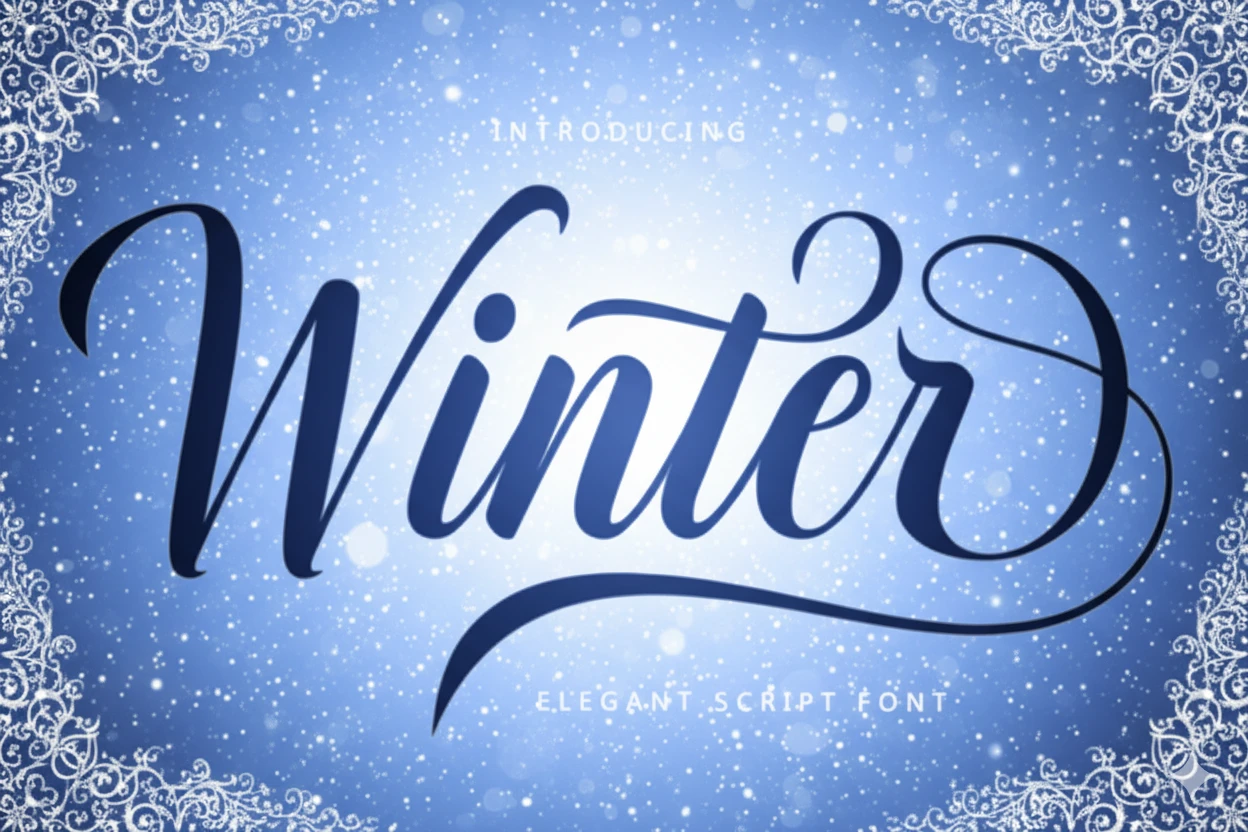
Winter Font – Elegant Script & Modern Calligraphy Typeface
Winter Font is an elegant script and modern calligraphy typeface — ideal for Christmas cards, branding, and luxury holiday design projects.
Celebrate creativity with Winter Font, a stylish elegant script typeface that blends modern calligraphy with classic charm. Its refined curves and flowing strokes make it perfect for holiday projects, branding, invitations, and editorial designs.
Whether you’re designing for Christmas, winter events, or luxury campaigns, Winter Font brings warmth, beauty, and refinement to every word.
Unlike ordinary script fonts, Winter Font features bold strokes, elegant curves, and dynamic movement that capture both winter elegance and modern style. Every letter flows beautifully, adding a premium feel to your typography.